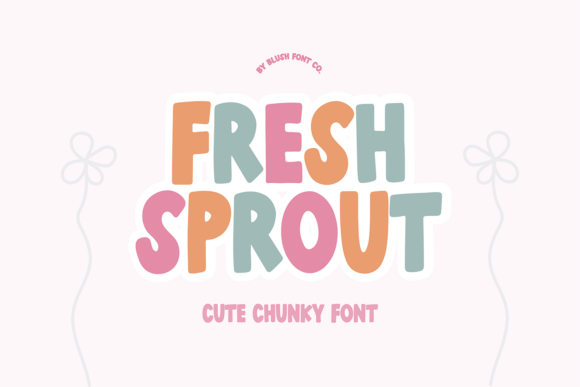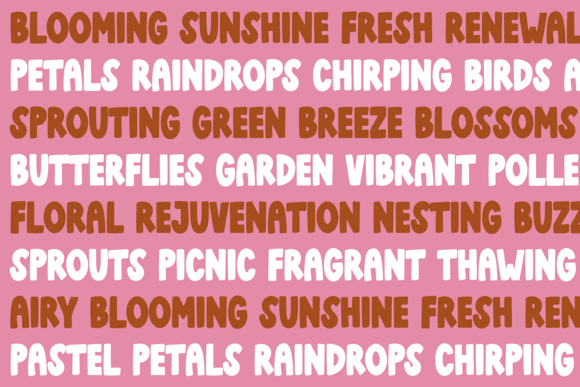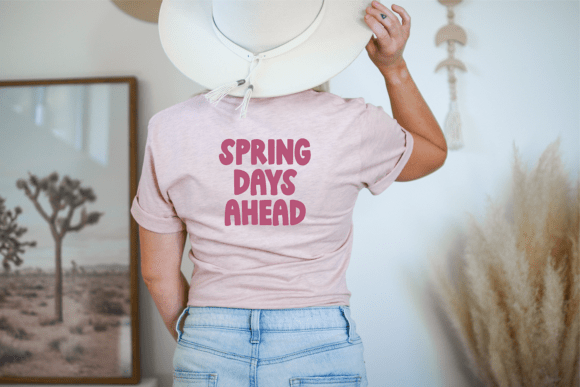
Fresh Sprout Font
About the Fresh Sprout Font
The Fresh Sprout Font offers a perfect balance of form and function for your design needs. Fresh Sprout is a playful and bubbly font with a chunky, hand-drawn style that exudes charm and positivity. Perfect for children’s projects, branding, greeting cards, stickers, and social media designs, this font brings a fresh and fun vibe to any creative work. With its rounded edges and soft, friendly look, Fresh Sprout is an excellent choice for crafters and designers seeking a whimsical touch.
Its playful energy makes it ideal for children’s books, packaging for playful products, and branding for businesses targeting a young or family-oriented audience. However, its informal style is less suitable for large bodies of text or applications requiring high readability, such as websites or long-form documents. Avoid using it for UI elements.
Pairing Fresh Sprout with a clean sans-serif like Open Sans for body copy creates a balanced contrast, allowing the playful display font to shine. For a more sophisticated feel, consider pairing it with a delicate script font such as Great Vibes for added elegance in invitations or branding applications.
Fresh Sprout’s overall personality is undeniably cheerful and approachable. Its friendly, slightly imperfect forms contribute to its approachable, handmade aesthetic.